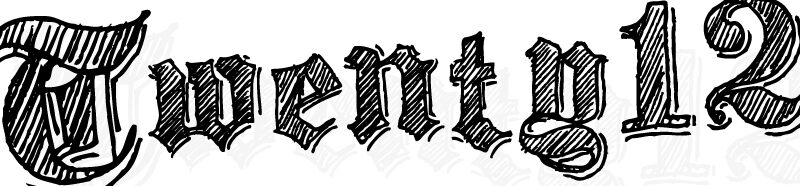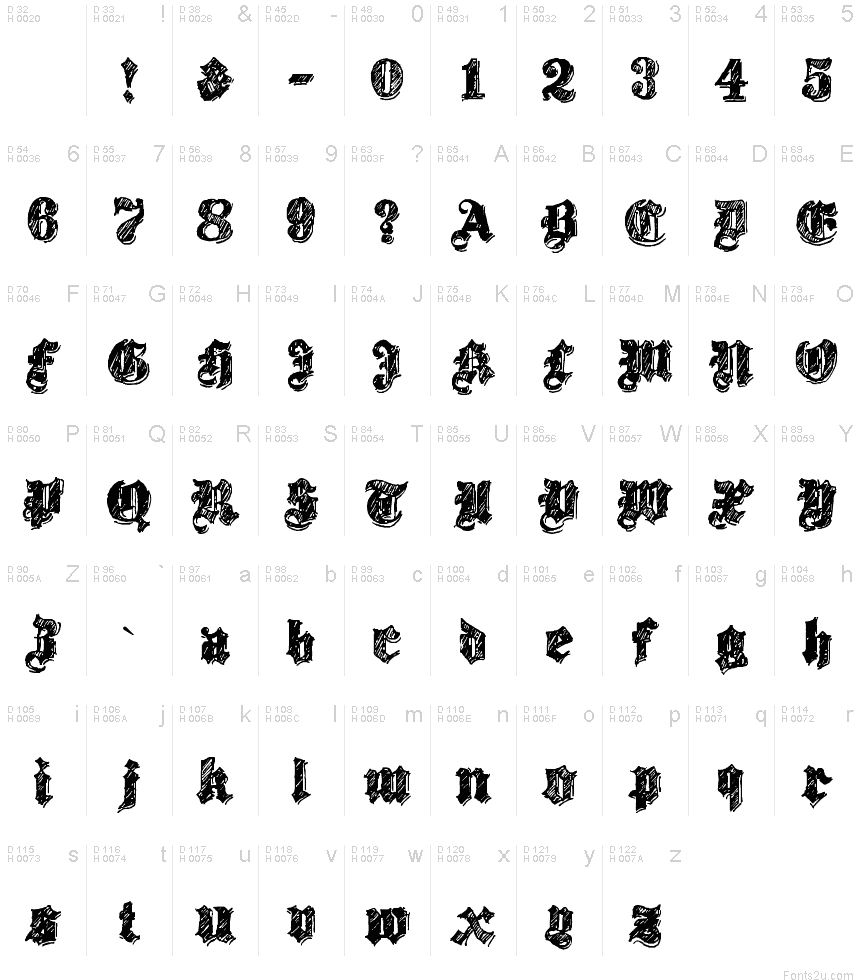
Twenty12 by Sheetz Design is a free medieval blackletter font with a dense, unruly silhouette. Its broad capitals and narrow lowercase forms are cut with sharp corners, curled feet, and exaggerated ornamental strokes. Scratch-like white marks give the dark letters a rough engraved texture.
A tattoo studio, metal label, or medieval-themed event could use it for branding with an abrasive, old-world edge. On album packaging or game artwork, the carved texture becomes part of the product identity.